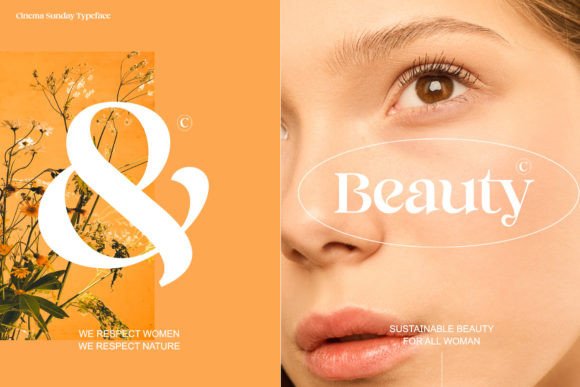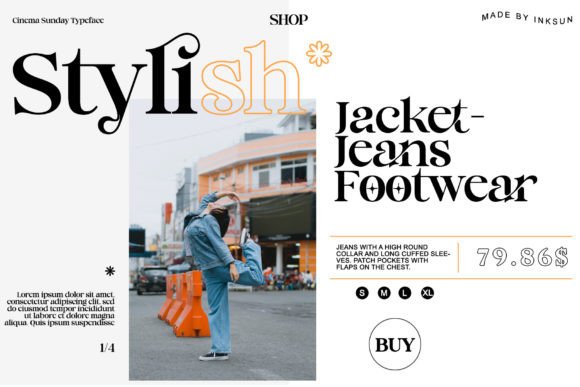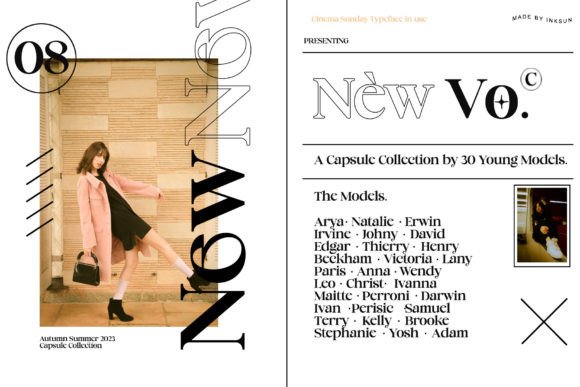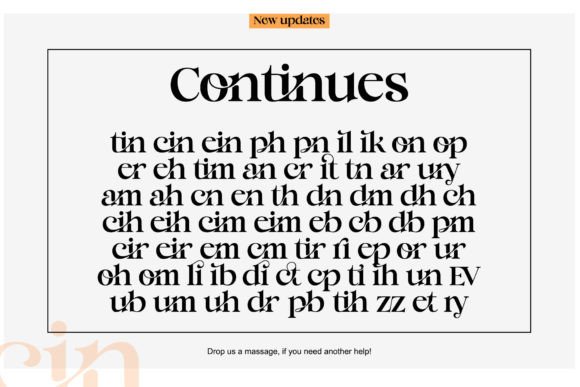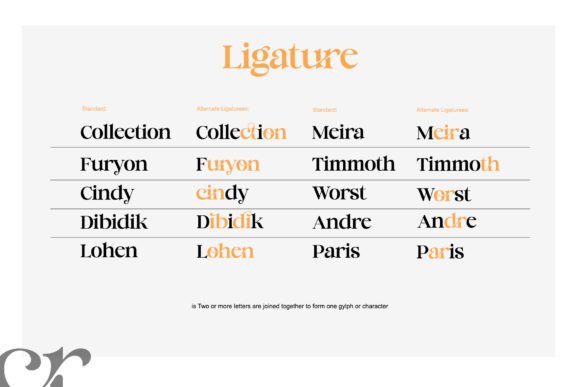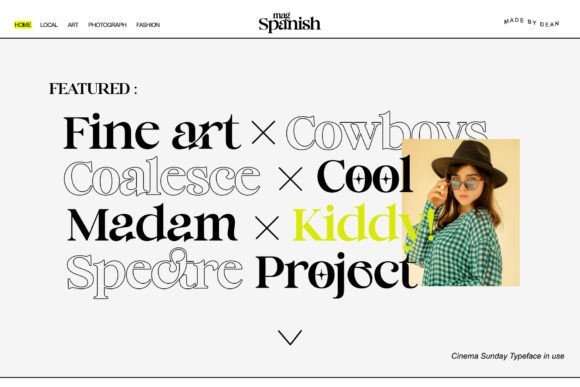
Cinema Sunday Font: Elevate Your Designs with Elegance and Sophistication
In the world of typography, a font can make or break the aesthetic of a design. For designers and crafters seeking to add a touch of luxury and sophistication to their work, Cinema Sunday Font is an exceptional choice. This bold and elegant serif font boasts a chic, feminine twist, making it perfect for a wide range of applications, from branding materials and packaging to websites and social media posts.
The Essence of Cinema Sunday Font
Cinema Sunday Font is characterized by its refined and stylish appearance. Its serif design lends a sense of tradition and reliability, while its bold and elegant strokes infuse a level of sophistication and glamour. This font is not just a means of communication; it’s a statement piece that can elevate the overall look and feel of your designs.
One of the standout features of Cinema Sunday Font is its versatility. It’s suitable for various design projects, including:
- Luxurious branding materials: Create a lasting impression with logos, business cards, and letterheads that exude elegance and refinement.
- Fashion and cosmetics packaging: Add a touch of glamour to your product packaging and make it stand out on store shelves.
- Apparel: Design stunning clothing and accessory labels that reflect your brand’s personality and style.
- Websites: Enhance your website’s typography and create a cohesive brand image that resonates with your audience.
- Social media posts: Elevate your online presence with stylish and engaging content that captures attention.
Why Choose Cinema Sunday Font?
With so many fonts available, why should you choose Cinema Sunday Font for your designs? Here are a few compelling reasons:
- Unique and distinctive: Cinema Sunday Font offers a fresh and distinctive look that sets it apart from more traditional serif fonts.
- Feminine touch: The font’s chic, feminine twist adds a level of sophistication and elegance, making it perfect for designs targeting a female audience.
- Highly legible: Despite its bold and elegant design, Cinema Sunday Font remains highly legible, ensuring your message is communicated effectively.
- Easy to use: This font is easy to incorporate into your designs, with a simple and seamless integration process.
Tips for Using Cinema Sunday Font
To get the most out of Cinema Sunday Font, consider the following tips:
- Pair with complementary fonts: Combine Cinema Sunday Font with complementary fonts to create visual interest and hierarchy in your designs.
- Experiment with colors: Play with different color schemes to find the perfect match for your brand and design.
- Use it sparingly: While Cinema Sunday Font is stunning, it’s best used sparingly to avoid overwhelming your design.
Cinema Sunday Font is a versatile and elegant serif font that can elevate your designs to new heights. Its bold and refined appearance, combined with its chic, feminine twist, makes it perfect for a wide range of applications. Whether you’re a designer or crafter, this font is sure to become a valuable addition to your typography arsenal. So why wait? Explore the possibilities of Cinema Sunday Font today and bring a touch of luxury and sophistication to your work!